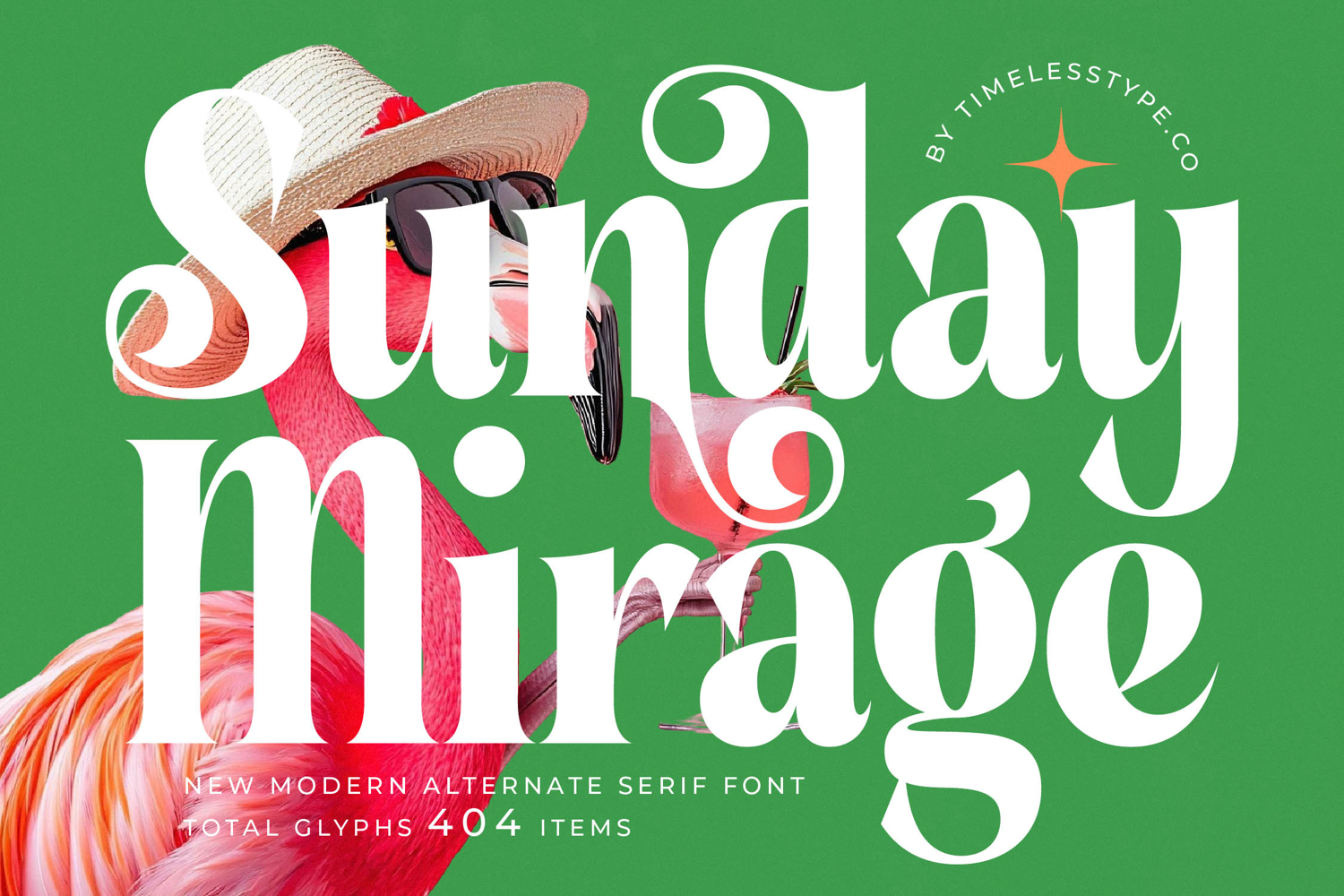
Sunday Mirage - Modern Alternate Serif Font
Unleash unparalleled elegance and charm in your next design project with Sunday Mirage - Modern Alternate Serif Font. This exquisite typeface captivates with its modern aesthetic and playful sophistication, blending classic serif foundations with a distinctly contemporary flair. Its high-contrast strokes and fluid curves are designed to make an unforgettable visual statement, instantly elevating any creative endeavor.
Discover the power of distinctive typography with Sunday Mirage - Modern Alternate Serif Font. Crafted with an array of alternate characters and beautiful ligatures, this font offers endless possibilities for customization, allowing you to create truly unique headings and expressive branding. Each letterform is a work of art, featuring swash-like terminals and elegant flourishes that exude a refined, yet inviting personality.
Expand your creative reach with the global adaptability of Sunday Mirage - Modern Alternate Serif Font. With its extensive multilingual support, Sunday Mirage - Modern Alternate Serif Font adapts seamlessly across global markets, making it incredibly versatile for international projects. This ensures your brand message resonates universally, maintaining its distinctive style and professional polish no matter the language.